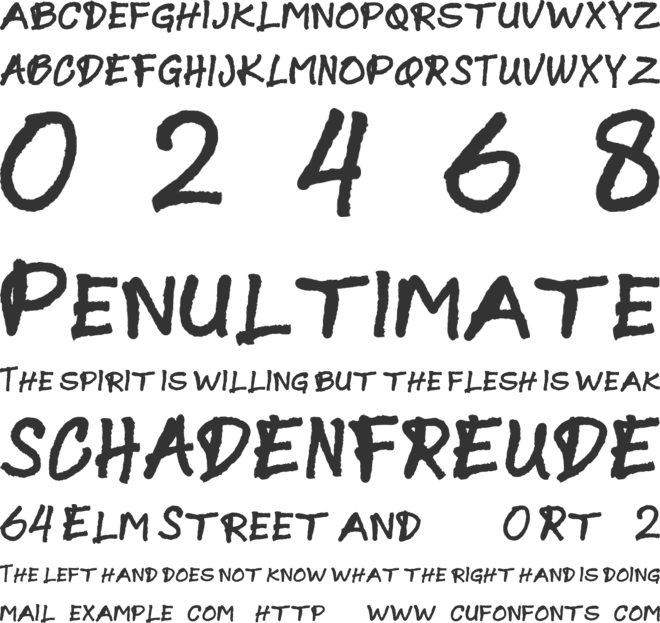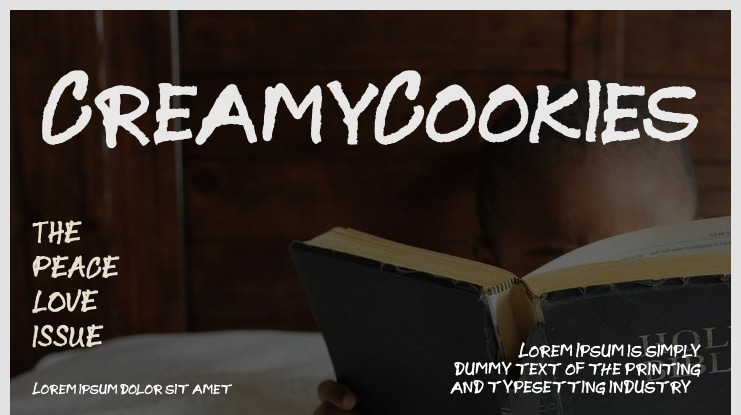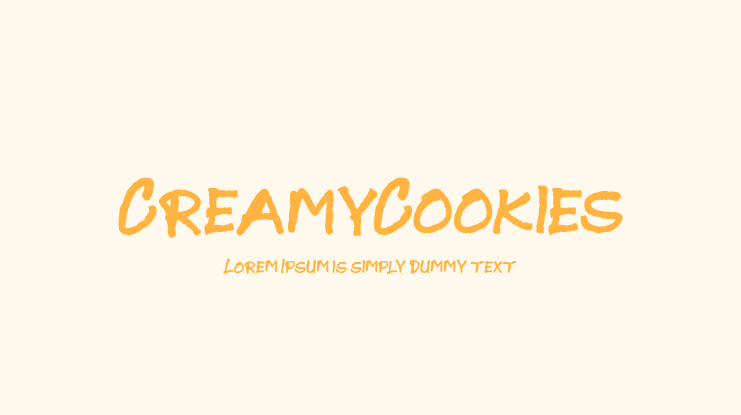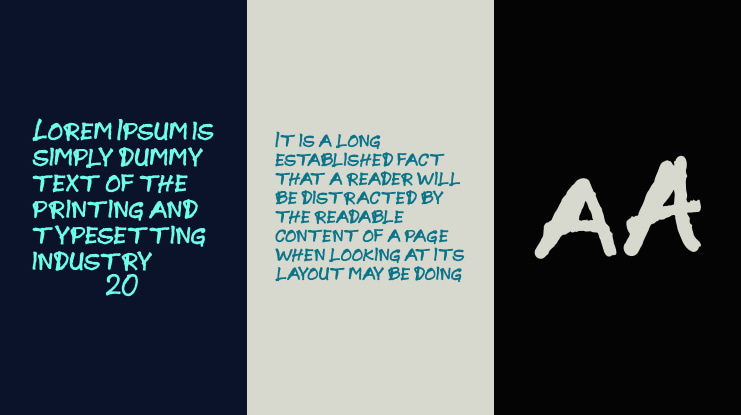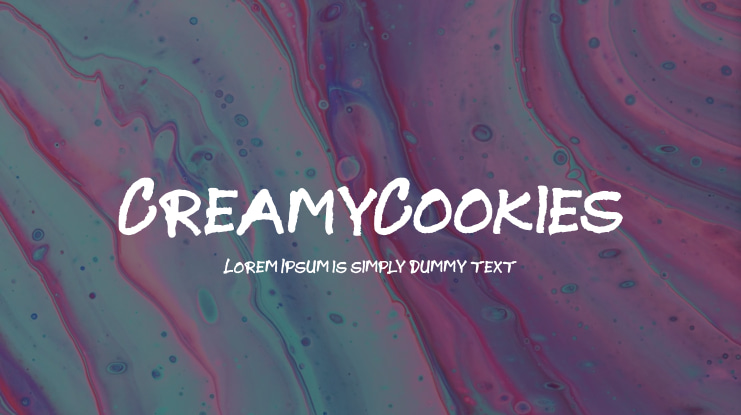
CreamyCookies Font
Introducing Creamy Cookies - a delightful handwritten marker font that adds a touch of charm to your designs. This font features playful strokes and elegant curves that radiate a whimsical and creative vibe, reminiscent of notes written by hand on a cozy afternoon.
Embrace your creative instincts and infuse your projects with a hint of sweetness. Ideal for branding, packaging, invitations, and more, Creamy Cookies brings a uniquely delicious flavor to any design scheme.
Nourish your desire for creativity and enhance your designs with the magic of Creamy Cookies. Unleash your imagination and witness your projects come to life with a sprinkle of handwritten charm.